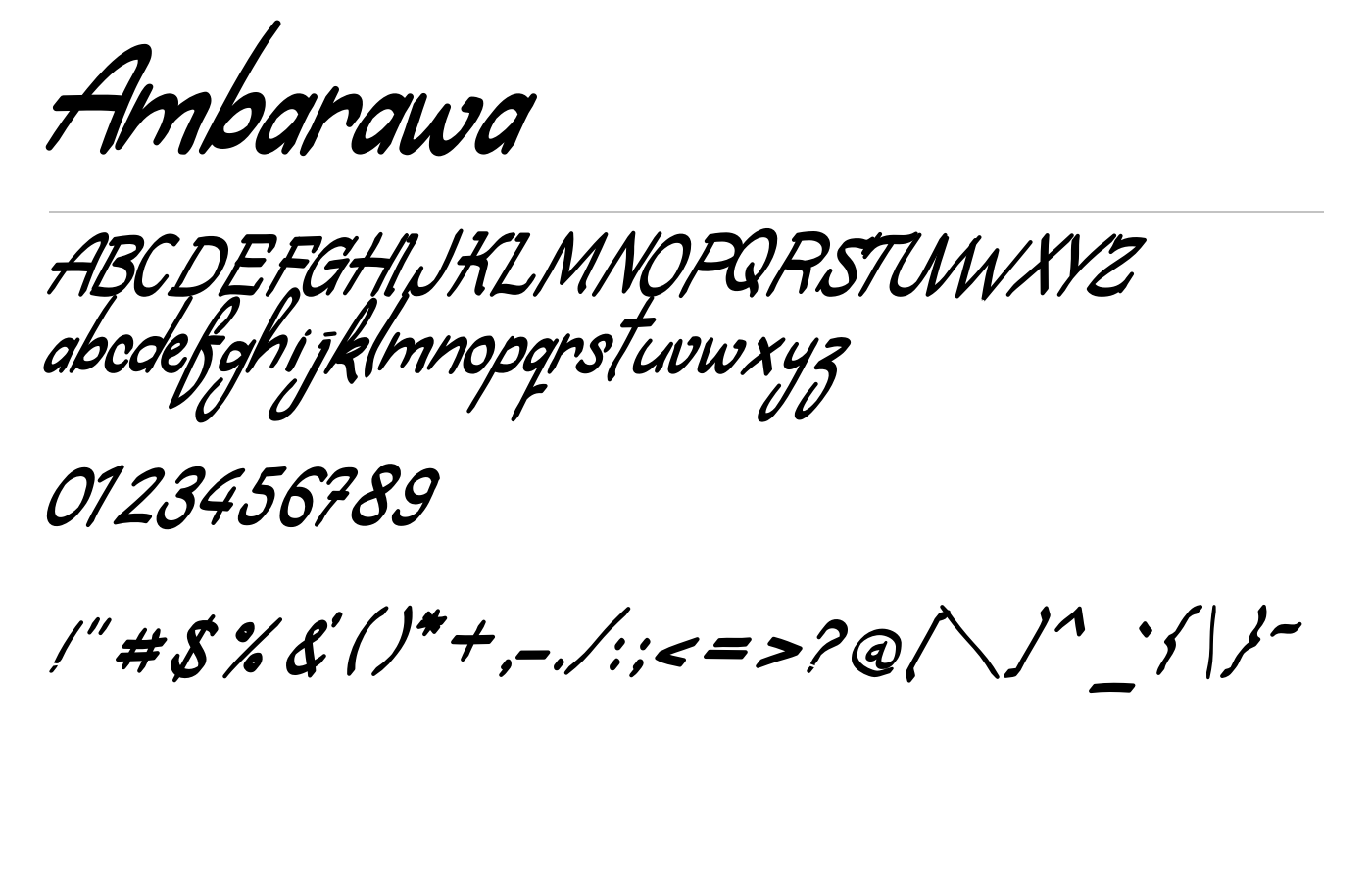
Ambarawa is a lively and elegant script font with a dynamic, handwritten feel that brings warmth and personality to any design. Its fluid, slightly slanted letterforms and moderate stroke contrast make it ideal for creative branding, invitations, and expressive headlines where a personal, artistic touch is desired. This font works beautifully in contexts that call for a stylish yet approachable look, adding charm and sophistication without feeling overly formal.
Ambarawa Font
About Ambarawa Font